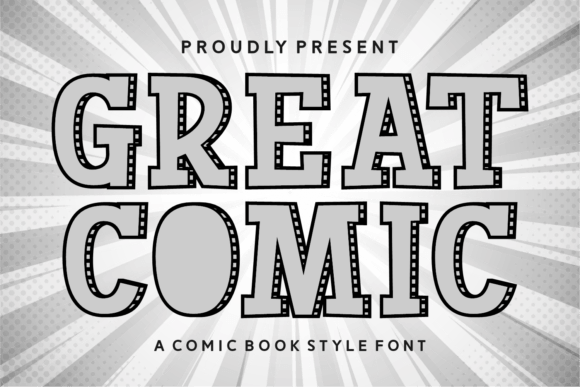
Dive into the realm of captivating creativity with Great Comic Font, a remarkable slab serif font that will ignite your imagination and elevate your designs to new heights.
Created by the visionary minds at Creative Fabrica Fonts, Great Comic Font is a masterpiece that combines the classic charm of slab serif fonts with a contemporary twist. Its bold serifs and captivating 3D effect create a visual symphony that demands attention and leaves a lasting impression.
Unleash your inner artist and explore the boundless possibilities of Great Comic Font. Its versatility knows no limits, making it the perfect choice for a wide range of design projects. Craft eye-catching posters that leap off the page, design book covers that capture the imagination, and create advertising materials that leave an indelible mark.
With Great Comic Font as your creative companion, you'll elevate your magazines, books, and websites to new heights. Its distinct character adds a touch of intrigue and individuality that sets your creations apart from the ordinary.
But Great Comic Font's allure extends beyond its aesthetic appeal. Its exceptional legibility ensures that your message is conveyed with clarity and impact. Whether you're crafting headlines, body copy, or intricate designs, Great Comic Font ensures that your words resonate with your audience.
Join the ranks of creative visionaries who have embraced Great Comic Font's boundless potential. Let your imagination soar as you create designs that captivate, inspire, and leave an enduring legacy.